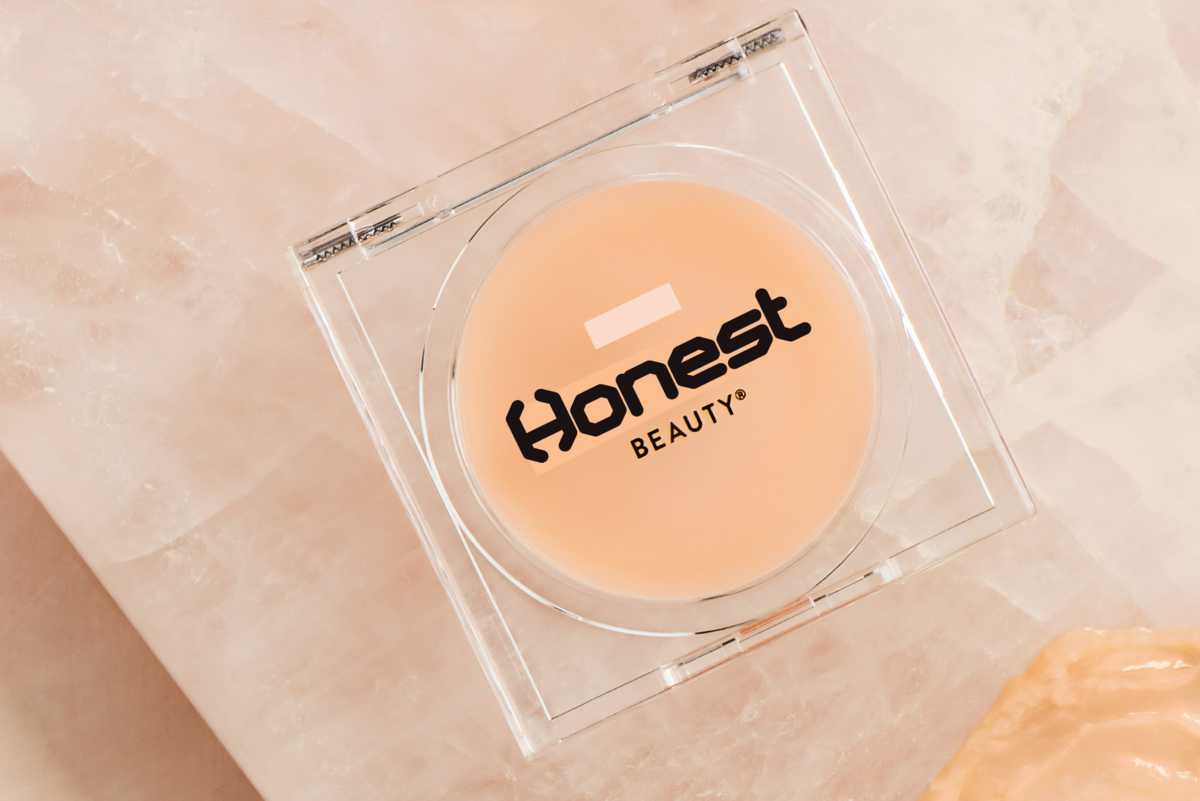
MechaneModerInfo.SetofMulticoloredBrightLetters刷新说明和YourDesign.VectorillInstruction.Isolatedonwhitebackground.MechaneModerInfo.SetofMulticoloredBrightLetters刷新说明和YourDesign.VectorillInstruction.Isolatedonwhitebackground。